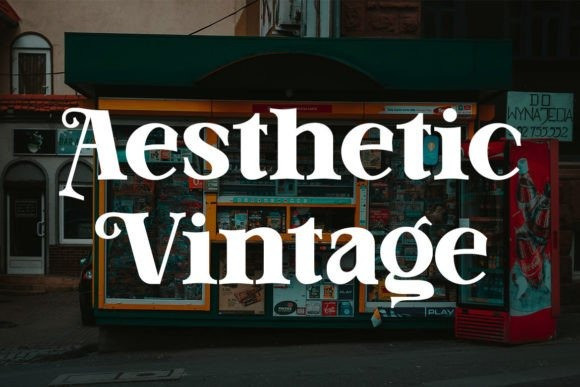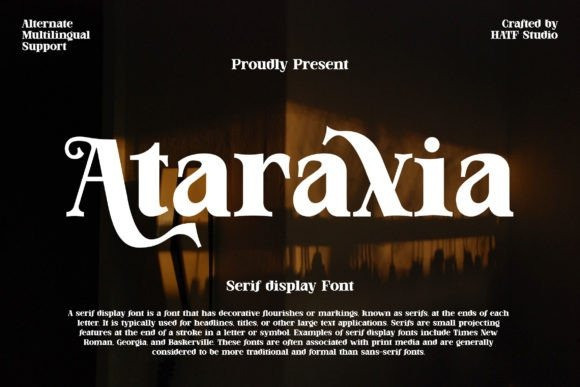
Ataraxia Font
Ataraxia Font by Hatf Type 21,831 downloads
Ataraxia Font
Ataraxia Font is an elegant serif display font with distinctive handwritten characters perfect for branding projects, logos, wedding designs, media posts, advertisements, product packaging, product designs, labels, photography, watermarks, invitations, stationery, and any project that needs a touch.